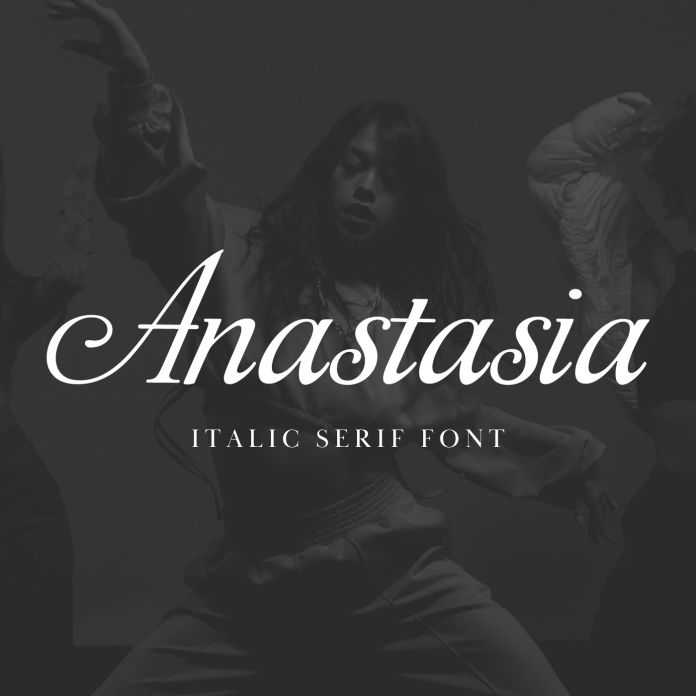
A beautiful modern script font that balances simplicity and detail with a hint of elegant swirls and swashes. Font includes uppercase, lowercase, numbers, punctuation and basic international characters.